Choosing the best clean fonts for websites is a crucial step in creating a visually appealing and user-friendly design. A clean website generally has a clear hierarchy to guide users to peruse your website. Moreover, the font you choose can make a significant impact on how visitors perceive your brand.
Top Choices of The Best Clean Fonts for Websites
Clean fonts are characterized by their simplicity, readability, and versatility, making them ideal for conveying information clearly and most importantly, fitting your style. With all that in mind, let’s find out how clean fonts can elevate your website.
1. Resnay
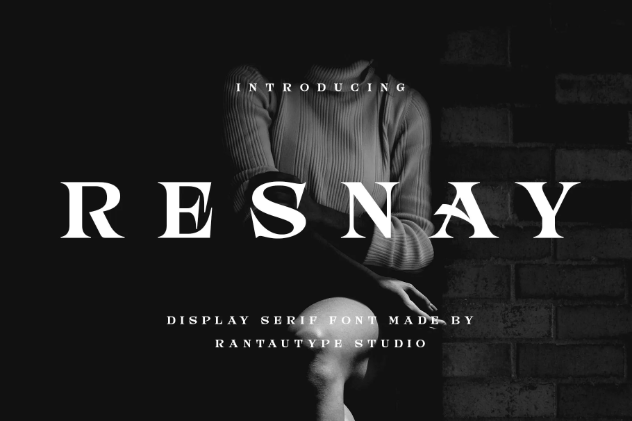
Resnay balances simplicity and beauty to a tee. As a display serif font, it has bold strokes and a Gothic-influenced flair in each letter.
2. Coder
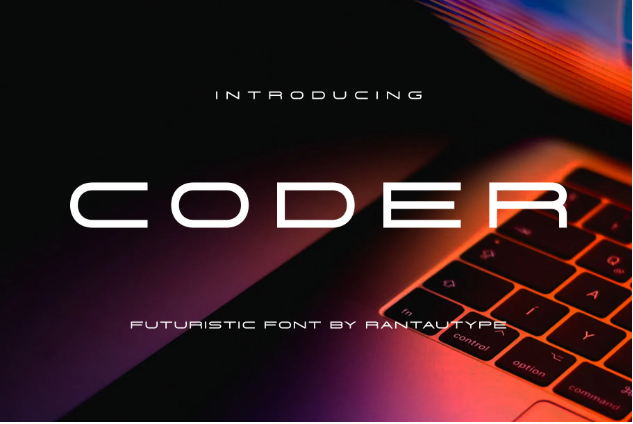
If you’re into modern design and business, Coder is the futuristic font for you. The font includes both cases and a wide appearance, cleverly filling your page.
3. Ranoya
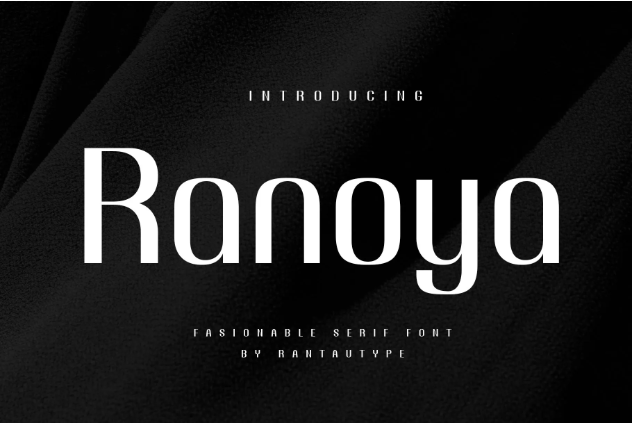
Along with a sleek form, Kanoya is fit for fashion-related websites. The font is clean, elegant, modern, and luxurious at the same time.
4. Elsone
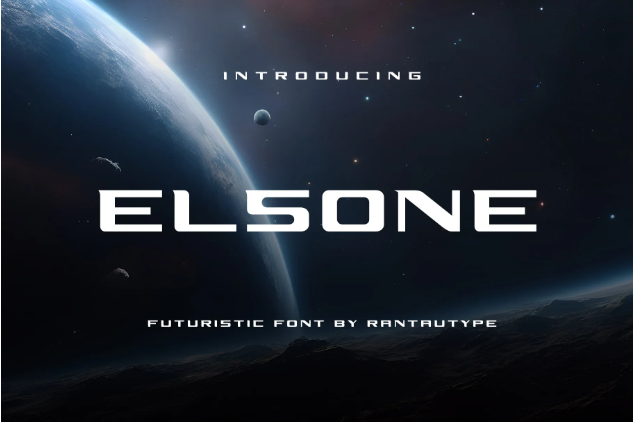
A family font Elsone has 4 typefaces: the regular, outline-only, and the italic version of the two. This futuristic font has a bold, clean typeface with a slightly sporty look.
5. Perfect Girl
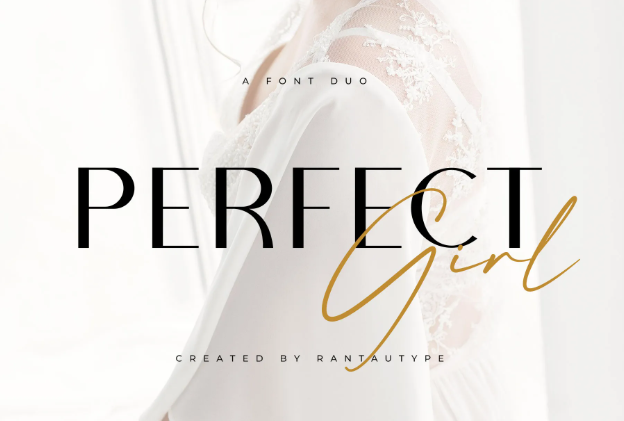
A font duo Perfect Girl brings you two cohesive font styles. It has a modern, minimalist sans serif and luxurious, classy script.
6. Navagio
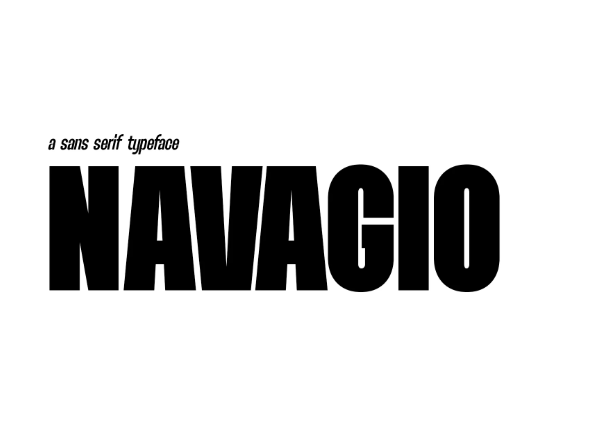
Another family font in our best clean fonts for websites is Navagio. This one is in the form of a heavy sans-serif font. Navagio excels is a simplistic website design because of its bold appearance.
7. Helison
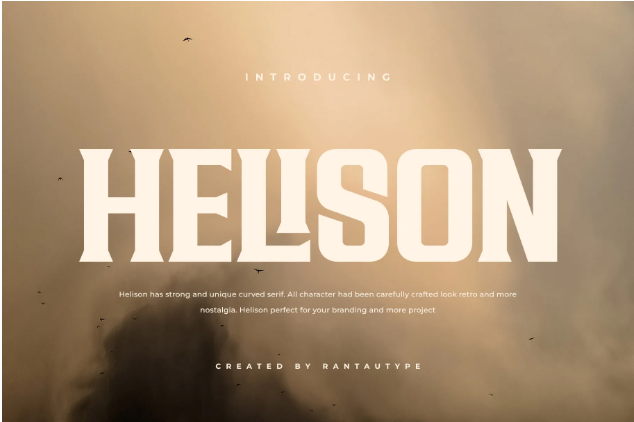
For a uniquely strong presence on your webpage, use Helison. This font has a thick vintage look. Although, with vibrant coloring, it’ll pop more.
8. Maorin
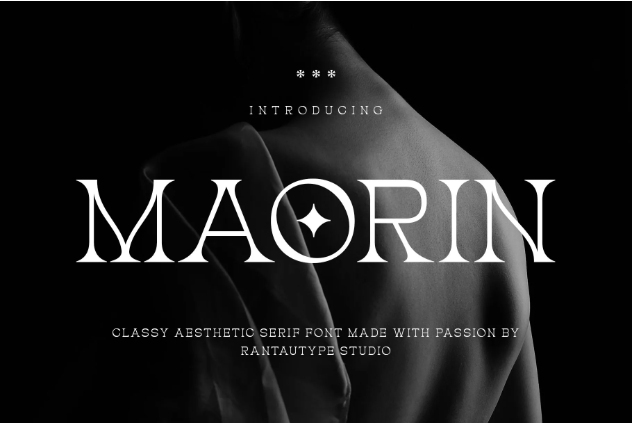
Serif fonts like Maorin are the best clean fonts for elegant websites. This font has authentic curves that scream elegance and confidence, perfect for your beauty-related websites.
9. The Glorious
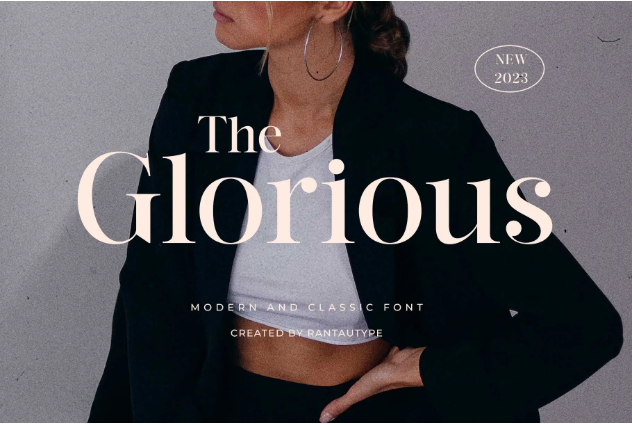
The Glorious combines modern typeface ideas with classical characteristics. It shows through the unique tail and loop styles with sleek, modern strokes.
10. Kavora
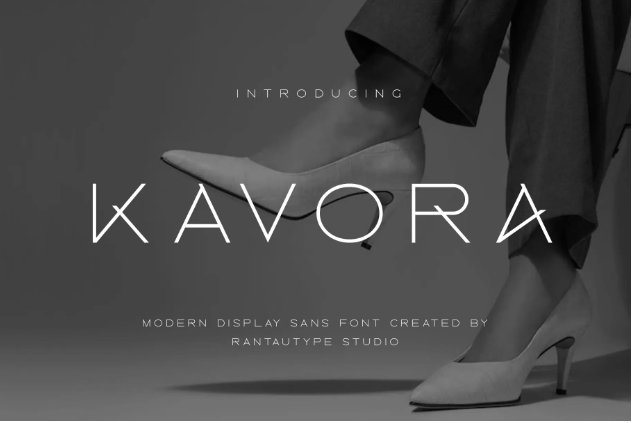
Sans serif fonts are generally a great choice for making clean websites, and a modern font like Kavora adds just enough flair to your typography. It has thin strokes and a wide width, just the font to show off the background.
11. Pageson
For a bold and strong presence, Pageson should take care of the text. The font has a solid, bold, and blocky appearance, easily catching some eyes with minimal ornaments.
12. Gonce
Gonce brings the minimalist sans serif to a more formal way. The font has more width than the usual sans typefaces for a clean geometric visual.
13. Hexos
Hexos is a bold display font with great legibility and fun ligatures. If your website has ample picture content, you want to use Hexos to highlight the short texts
14. Sonety
When you already have condensed and regular sans serifs, here’s the depressed one, Sonety. Adding similar characteristics with slightly different styles can tone up your website, even just the text.
15. Moneis
Moneis offers a balanced amount of kernings, width, and height of a sans font. The font exudes a modern and formal style. But it is bold, so better keep it on the Heading.
16. Hidone
Hidone is an all-in-one minimalist font. This geometric sans serif has multiple styles in its package, inspired by the iconic Futura and Montserrat fonts.
17. Mooner
While going for simplicity, you deserve the best clean fonts for websites like Mooner. The trendy and unconventional letterforms wed together the whole modern aesthetic.
18. Malbern
Malbern is a stylish font, it has the characteristics of display styles with vintage vibes. Unlike other bold fonts that are rigid and blocky, Malbern is more relaxed and curvy.
19. Rubyrose
Rubyrose shines through with its flowy typeface. It creates a sense of movement with its ribbon-like strokes, solidifying its gentle beauty and elegance.
20. Fassero
Fassero is a futuristic font with sharp angles and cuts. Although unique, it still retains great legibility. When paying more attention, its futuristic flairs are derived from familiar shapes, like a SIM card or winding road sign.
21. Mencary
We close our list with the classic typewriter typeface, Mencary. Back in the day, this font was made solely to read easily. At a glance, your website would gather people with a clear niche.
Write Clear Narratives with The Best Clean Fonts for Websites
Selecting a clean font is about more than just aesthetics, it’s about creating a seamless user experience and fitting the brand’s message. By focusing on the font choice, you can ensure a complete, polished, and professional look.